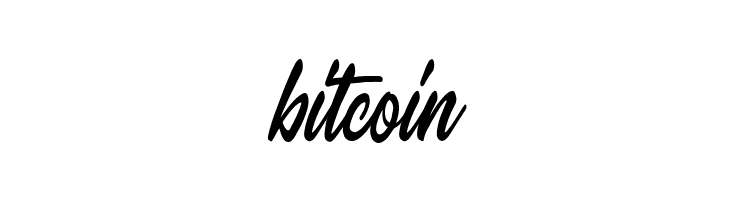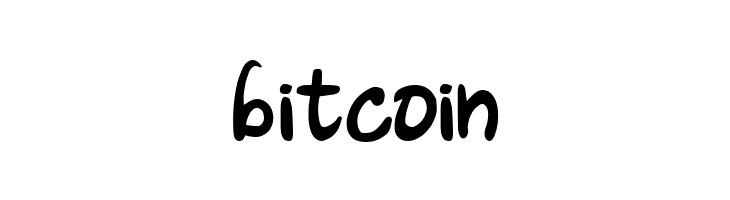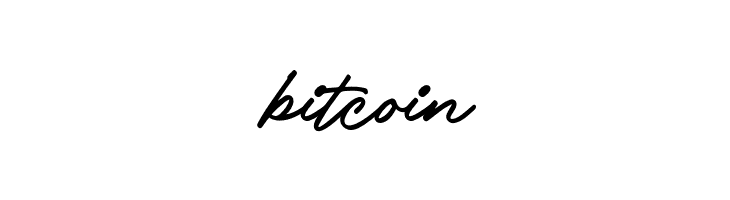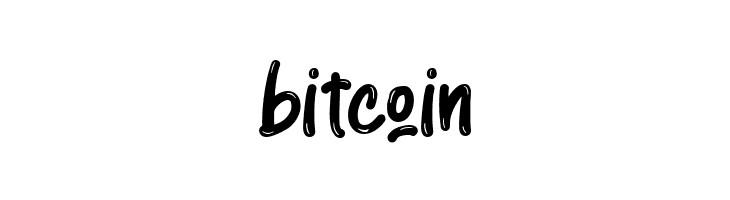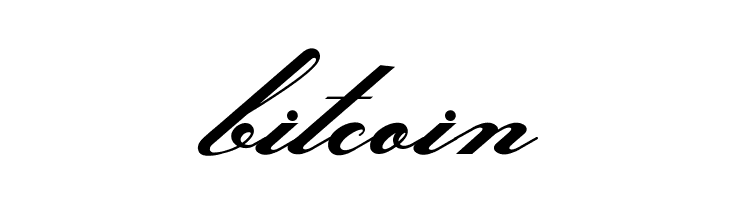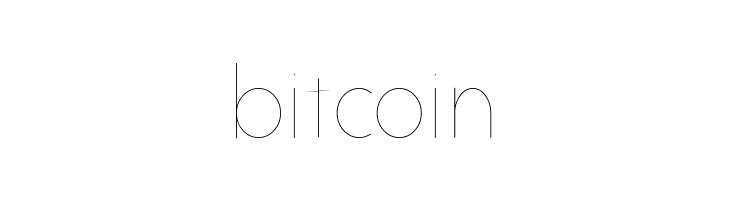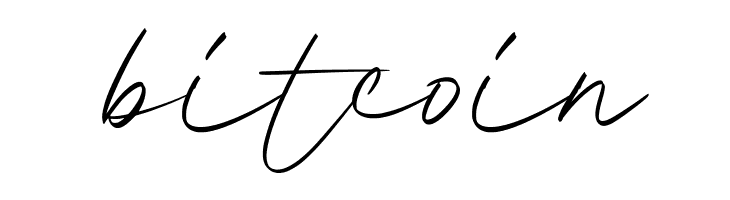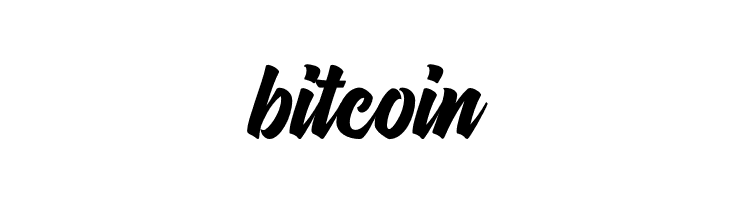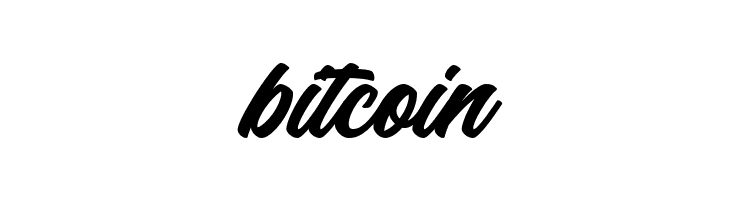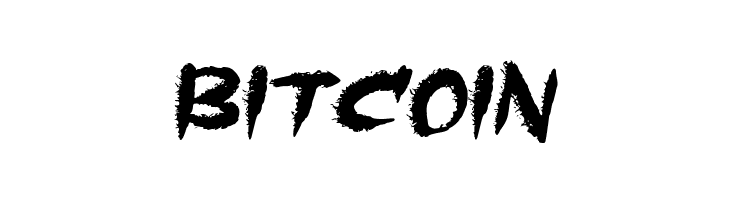
A dynamic and fluid script font with elegant, flowing curves.
A playful, handwritten font with a casual and friendly style.
A flowing, cursive script font with elegant, connected strokes.
An elegant script font with flowing, decorative strokes and graceful flourishes.
A bold, playful handwritten font with thick strokes and rounded edges.
An elegant script font with flowing, cursive letterforms and a sophisticated style.
An elegant script font with intricate swirls and flourishes.
A sleek, modern font with thin, elongated letterforms and minimal contrast.
A modern, cursive script font with fluid, connected letters and bold numerals.
A bold, dynamic script font with a modern and stylish flair.
An elegant and flowing script font with interconnected letterforms.
A bold, expressive handwritten font with fluid strokes and dynamic style.
A bold, cursive font with dynamic slanted letters and expressive swashes.
A whimsical script font with elegant, flowing letters and delicate strokes.
A playful, bold font with a whimsical, hand-drawn style.
A bold, textured brush font with a dynamic and edgy style.
A bold, geometric font with a modern and impactful design.
A lively, cursive font with a handwritten feel, perfect for creative projects.
A playful and elegant handwritten script font with fluid, connected letters.
A bold, dynamic script font with a fluid, handwritten style.
A bold, expressive script font with dynamic strokes and high contrast.
A bold, expressive handwritten font with fluid, dynamic strokes.
A dynamic, handwritten-style font with elegant curves and expressive strokes.
A dynamic, cursive script font with fluid, connected strokes.
A dynamic cursive font with fluid lines and elegant curves, perfect for artistic projects.
A bold, cursive script font with fluid, interconnected strokes.
A modern, cursive font with a fluid, handwritten style.
A flowing, cursive script font with elegant, handwritten characteristics.
A dynamic and energetic script font with fluid, cursive strokes.
A bold, playful handwritten font with thick strokes and a casual, dynamic style.
A bold serif font with a modern twist, featuring strong, commanding characters.